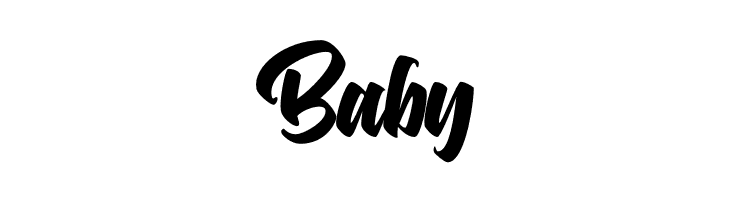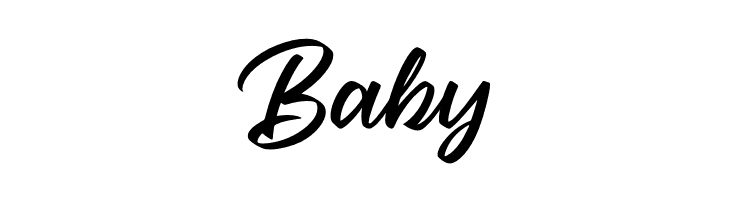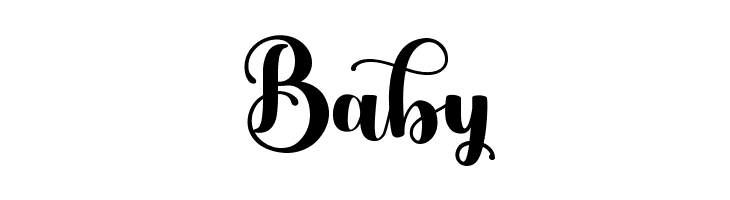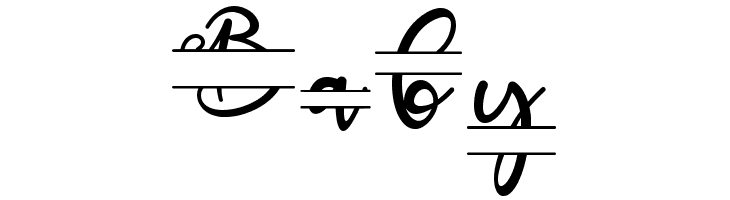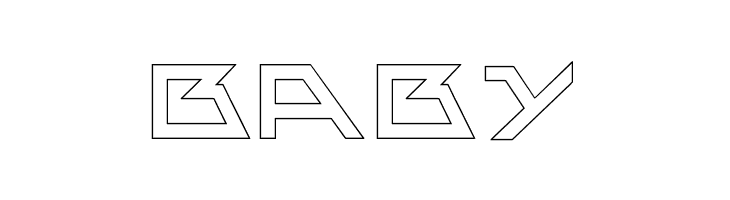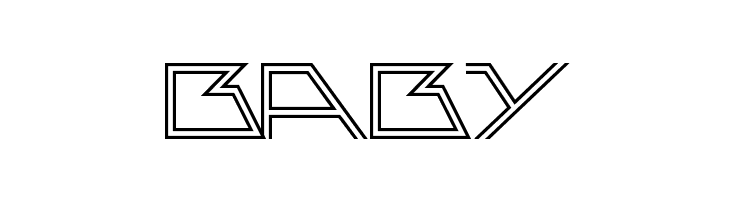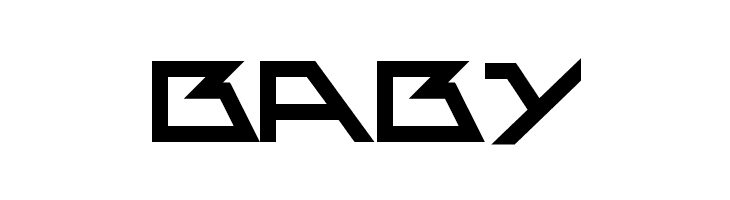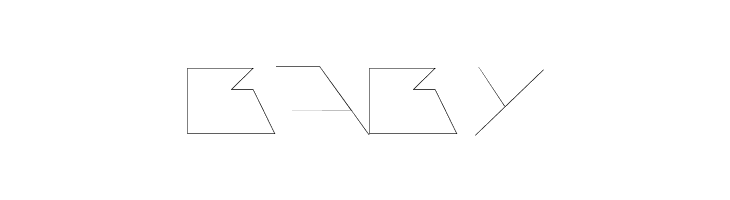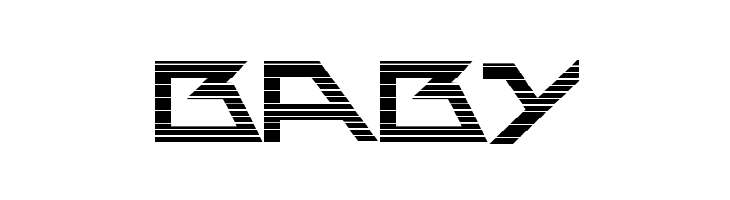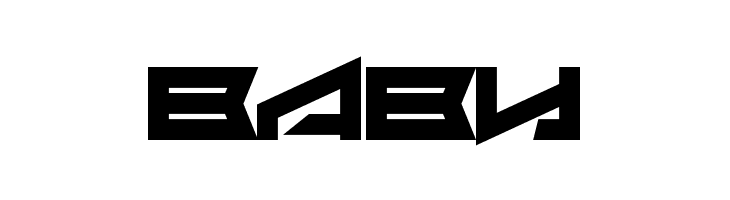
A bold, playful font with wide, rounded characters and a whimsical style.
A decorative, hand-drawn font with a distressed, textured effect.
A futuristic, angular font with bold, geometric shapes.
A bold, angular blackletter-style font with dramatic strokes and intricate details.
A bold, blackletter-inspired font with sharp, angular lines and intricate detailing.
A bold, 3D italic font with a filled interior and thick outlines.
A bold, 3D-filled font with a vintage yet modern geometric style.
A bold, 3D italic font with a modern, dynamic style.
A bold, 3D font with a geometric, blocky style and strong outlines.
A bold, italic font with sharp angles and a modern, dynamic style.
A bold, geometric font with strong, angular lines and a modern aesthetic.
A lively and fluid handwritten font with elegant, flowing letterforms.
A bold, Gothic-inspired font with sharp, angular lines and strong vertical strokes.
A bold, angular font with a gothic influence and pointed serifs.
A dynamic and elegant script font with fluid strokes.
A dynamic, flowing script font with a handwritten, artistic style.
A modern, geometric font with clean lines and uniform stroke widths.
An elegant, decorative font with intricate swirls and flourishes.
A playful, flowing script font with connected characters and smooth curves.
A playful, connected script font with consistent stroke width and whimsical curves.
A bold, geometric font with a futuristic and modern design.
A dynamic and expressive script font with fluid, cursive strokes.
An elegant, flowing script font with a handwritten style.
An elegant script font with flowing, cursive letterforms and a sophisticated flair.
A graceful and elegant script font with flowing cursive letterforms.
A modern, expressive handwritten font with elegant, elongated strokes.
A decorative script font with elegant loops and flourishes.
A bold, dynamic script font with a handwritten feel.
A playful, artistic handwritten font with fluid, connected letterforms.
A futuristic, geometric font with double lines and angular shapes.
A geometric, minimalist font with thin lines and sharp angles, offering a modern and futuristic look.
A geometric, hollow, and bold font with angular lines and a futuristic style.
A futuristic, geometric font with a striped, angular design.